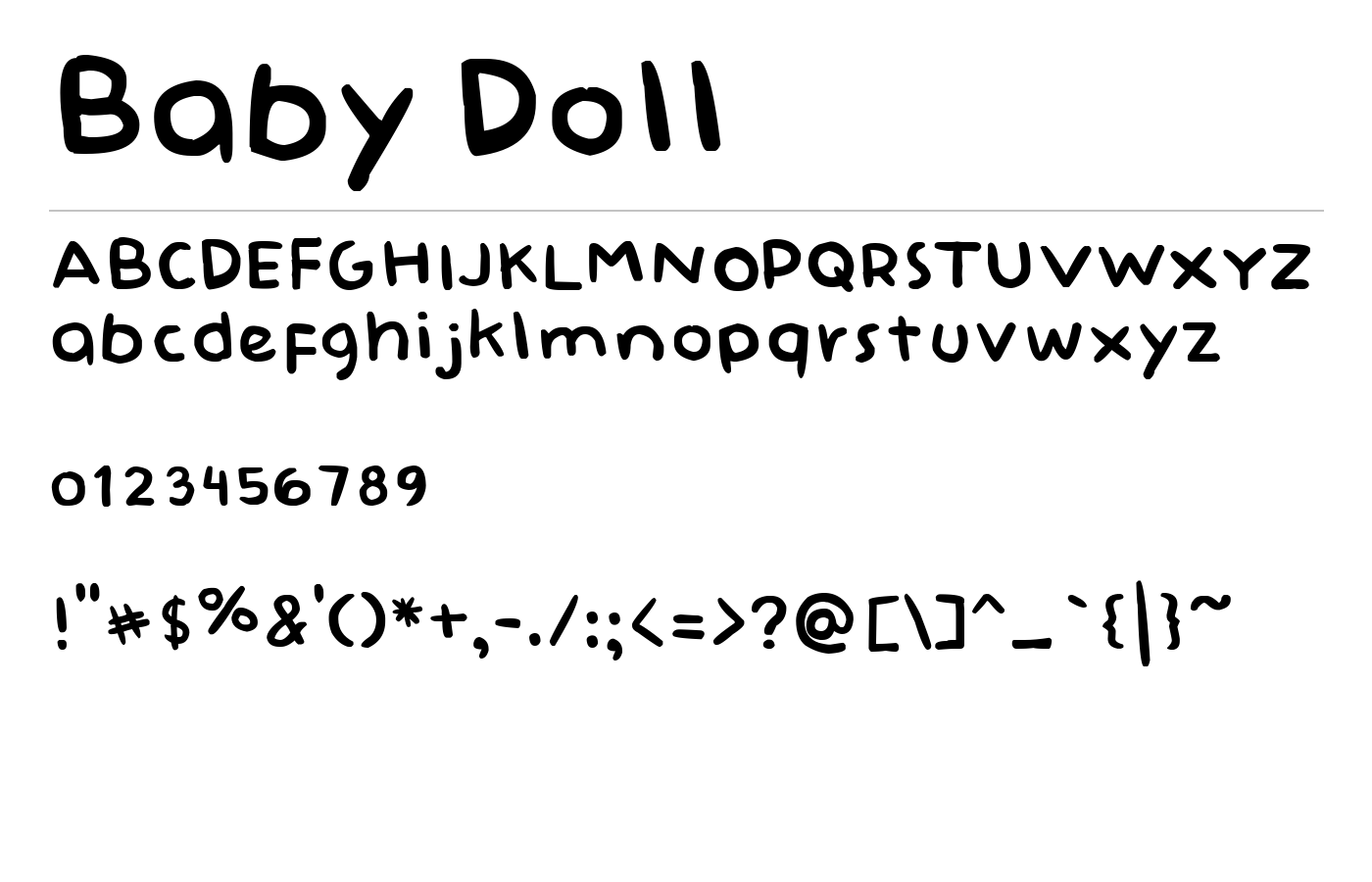
Baby Doll is a playful, casual sans serif font with a hand-drawn feel, characterized by its uneven strokes and rounded edges that create an approachable and friendly vibe. Its moderate weight and slightly irregular letterforms give it a charming, whimsical personality perfect for children’s designs, informal branding, and creative projects that seek a warm and joyful tone. This font works well in headlines, logos, and packaging where a fun and personal touch is desired.
Baby Doll Font
About Baby Doll Font
| Font family | Baby Doll Font |
| Designer | Denise Bentulan |